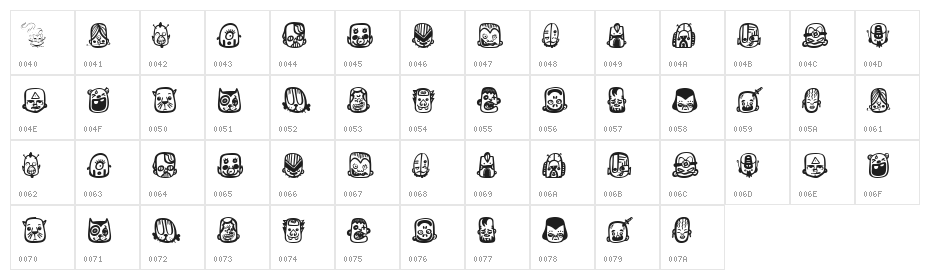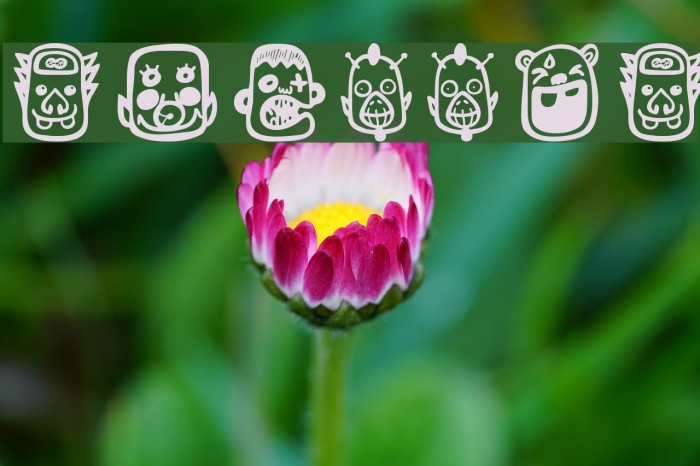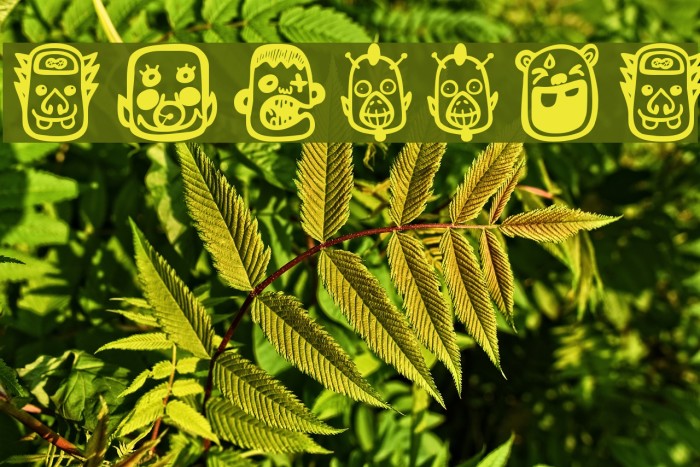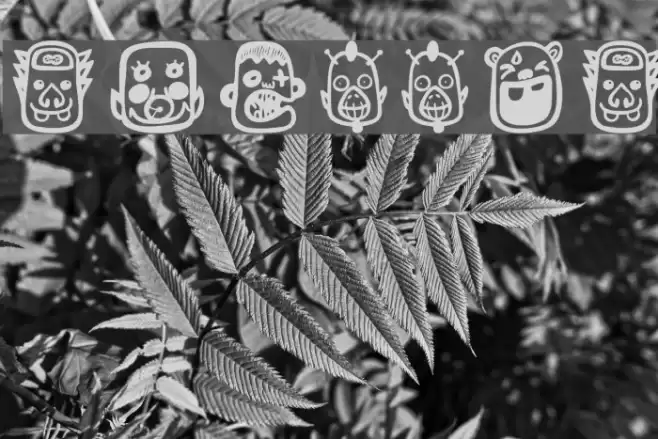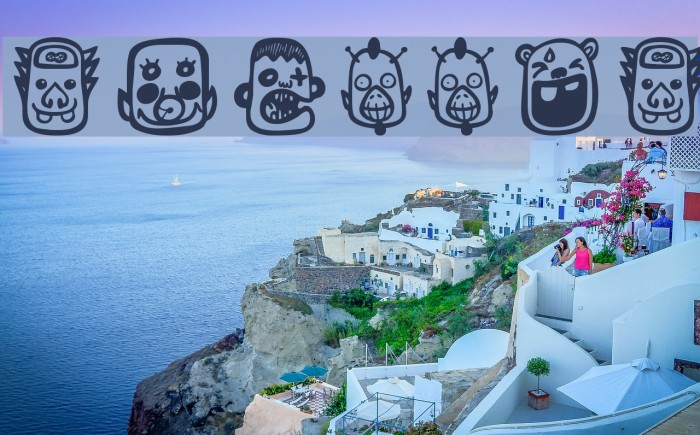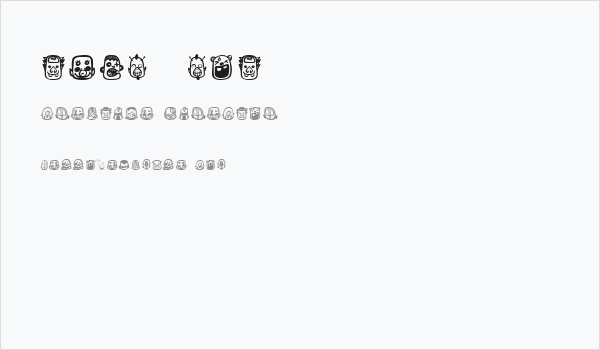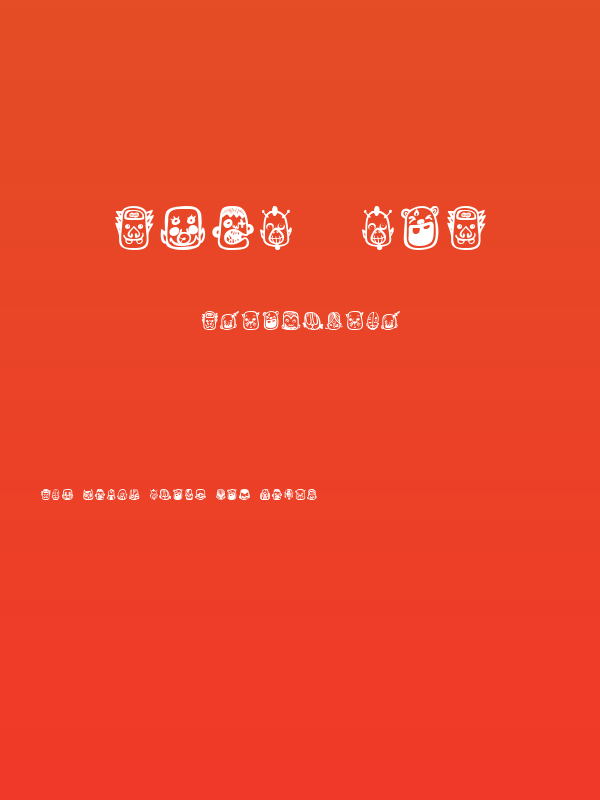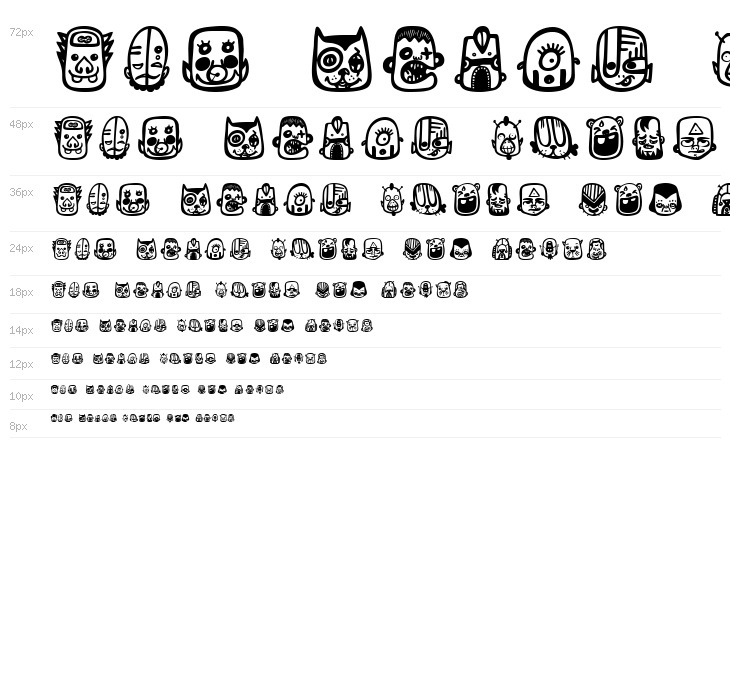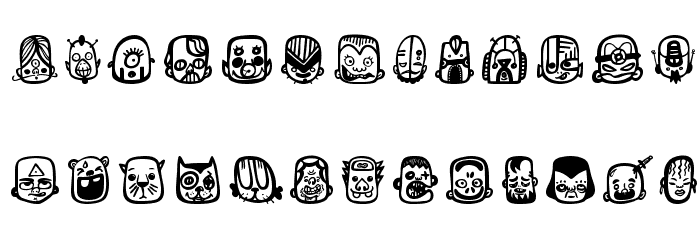
teubé bot Font
teubé bot Description
A playful and highly decorative font where each character is represented by a unique cartoonish face or head, featuring bold outlines and whimsical details. The glyphs are square-shaped and filled with expressive, hand-drawn elements, making each letter and symbol distinct and visually engaging.
| Overall Style | Decorative, Playful, Whimsical |
| Use Case | Headlines, Posters, Logos, Children’s content |
| Proposed Projects | Children’s books, party invitations, posters, comics, playful branding, educational materials. |